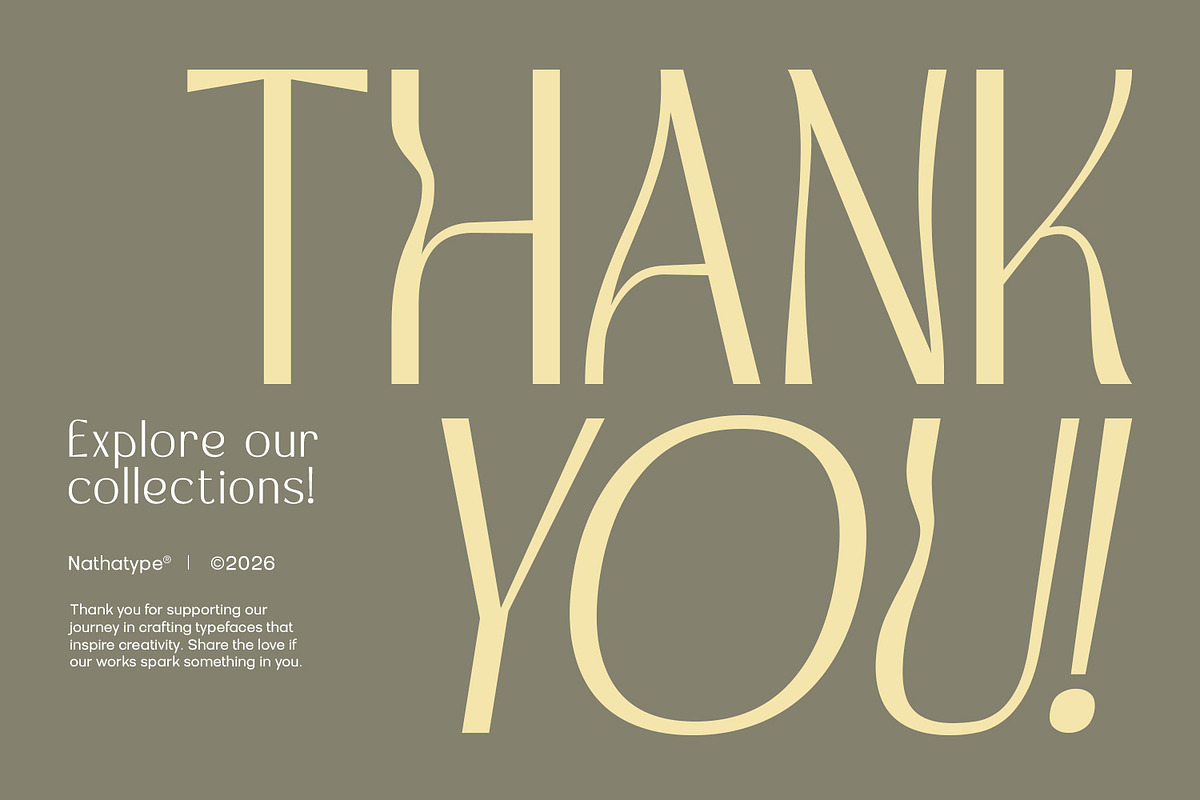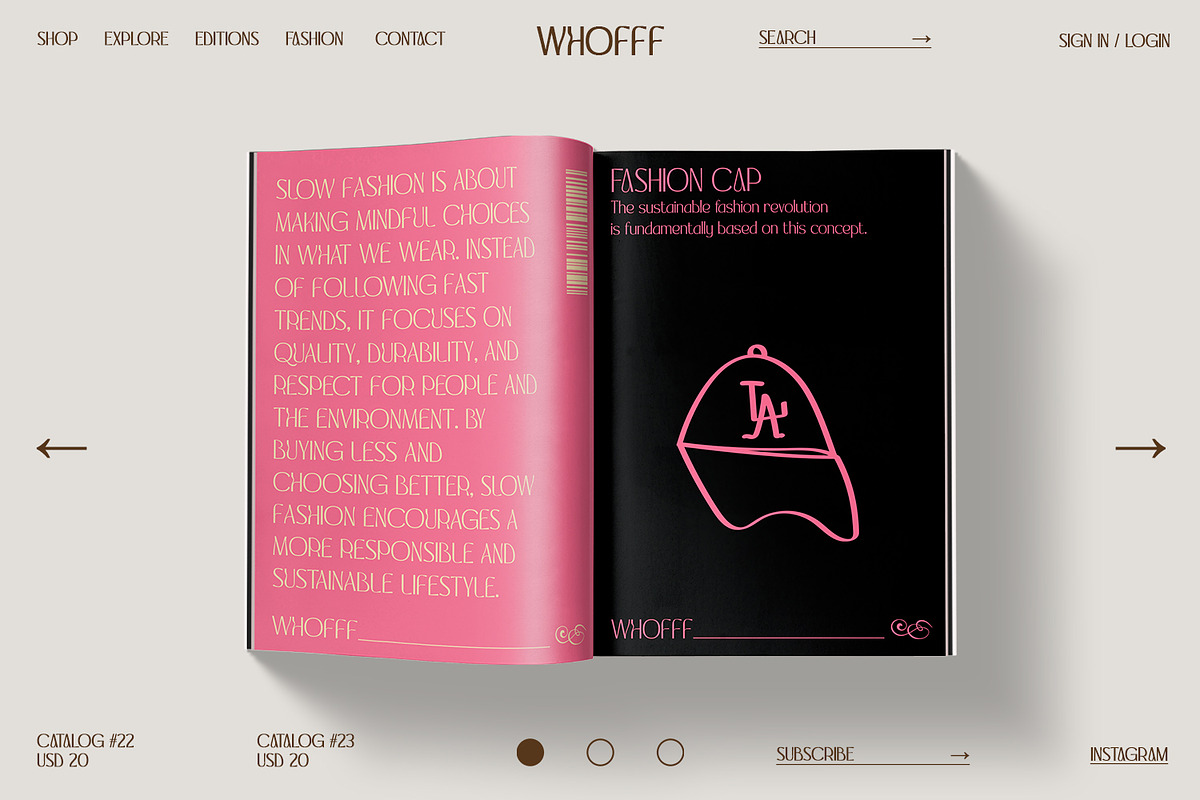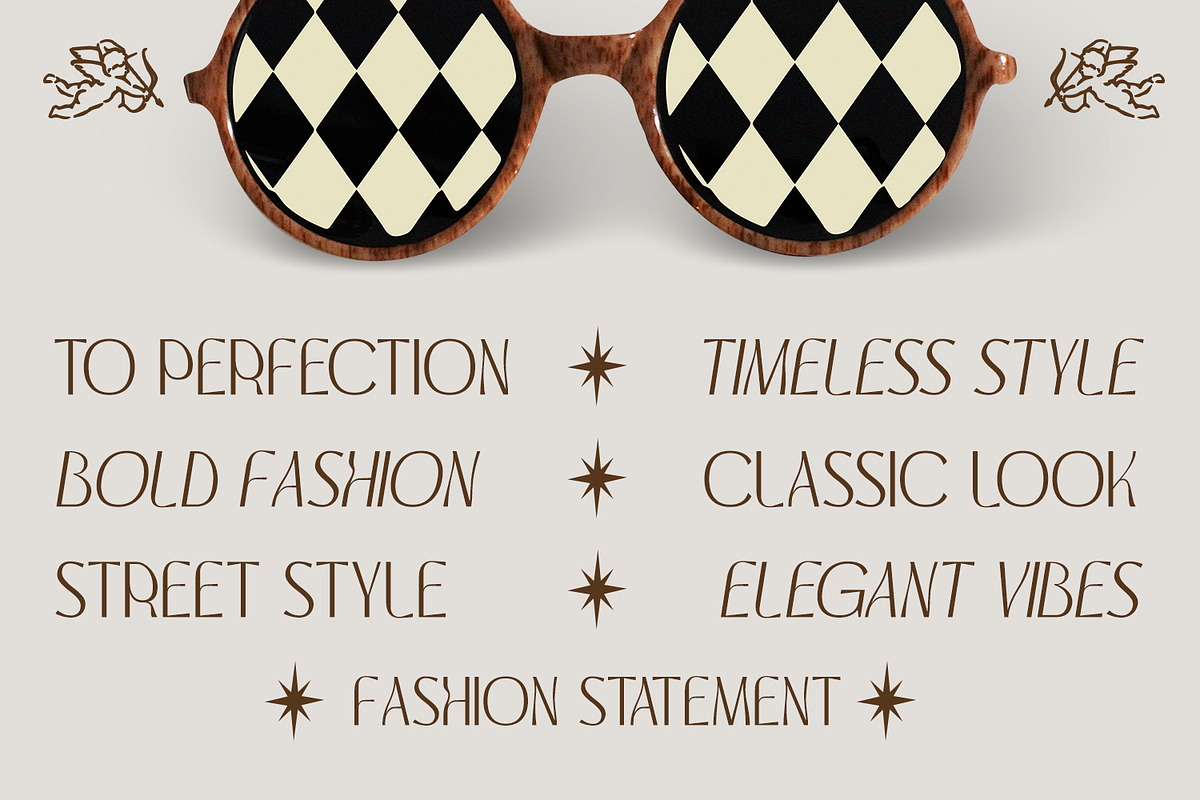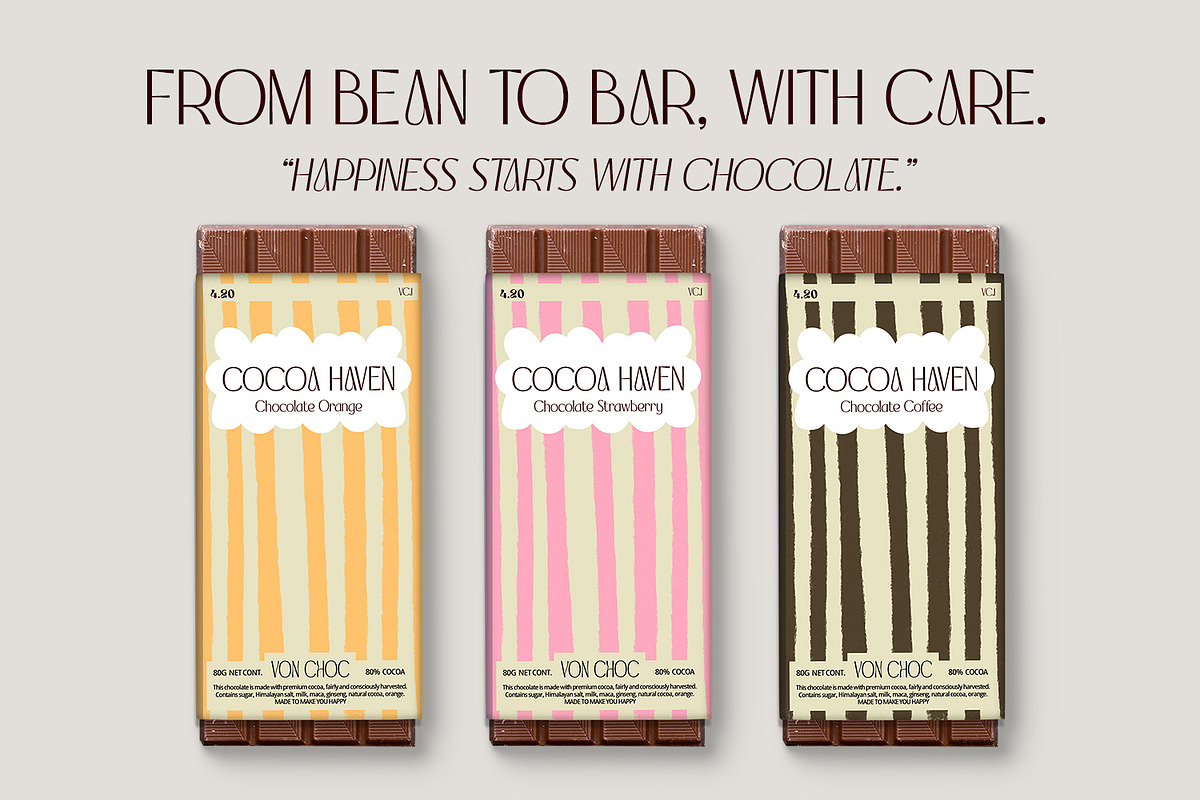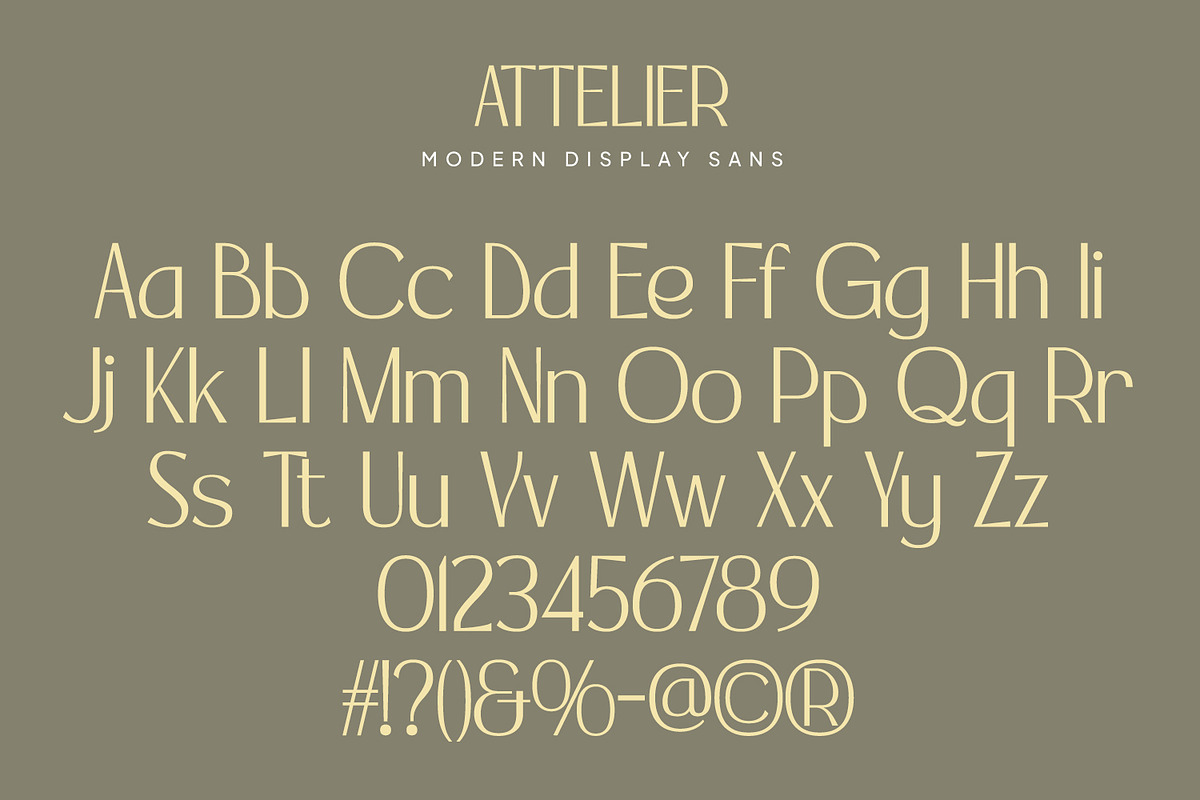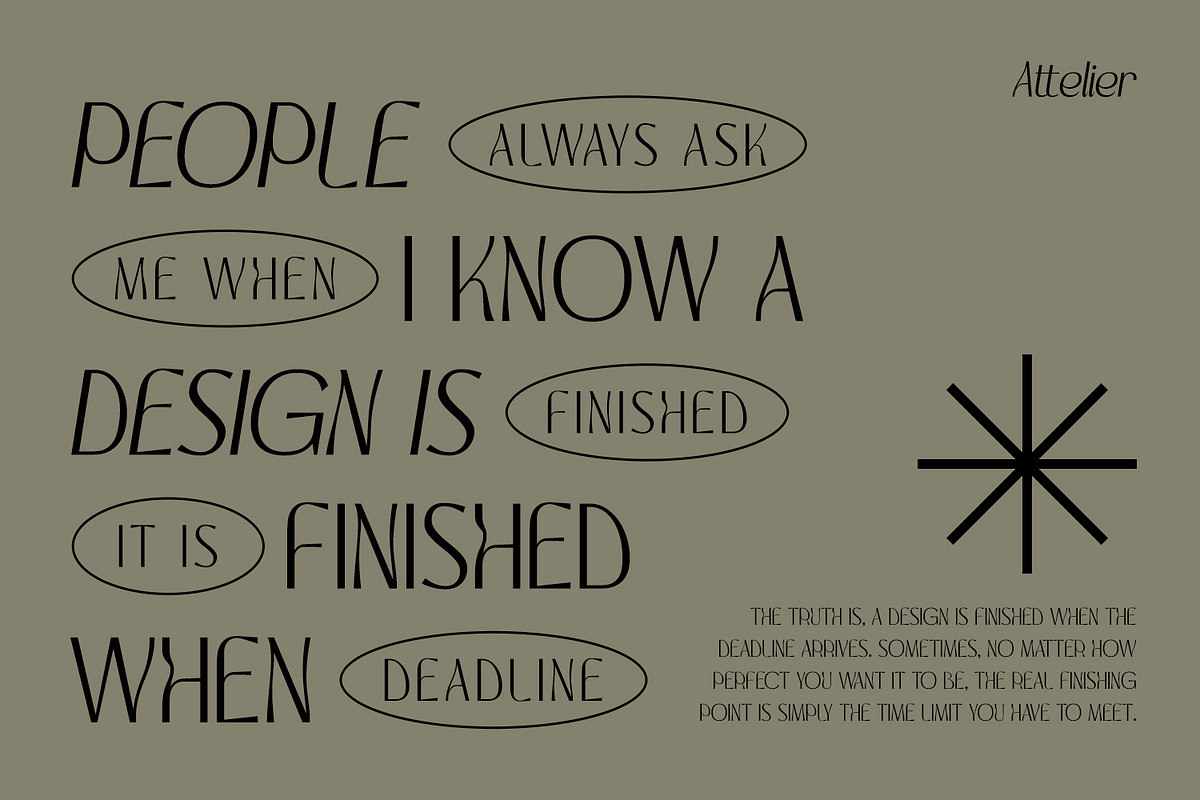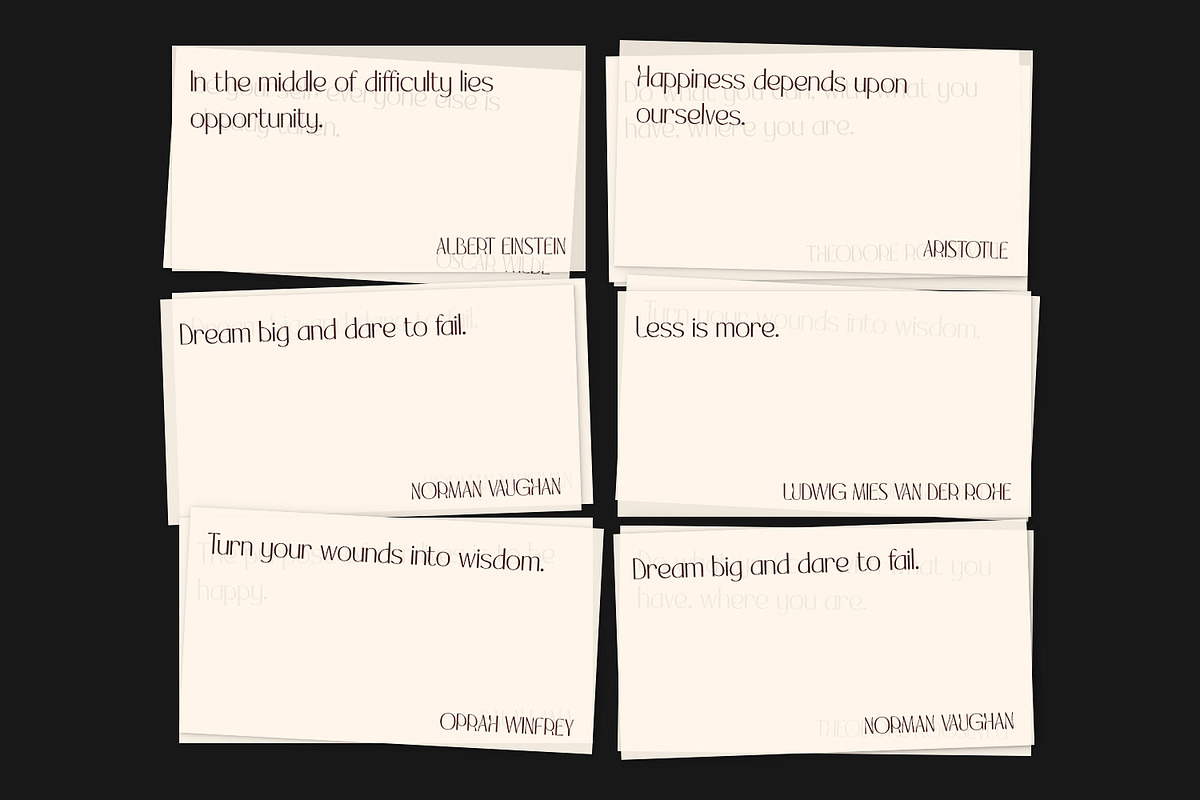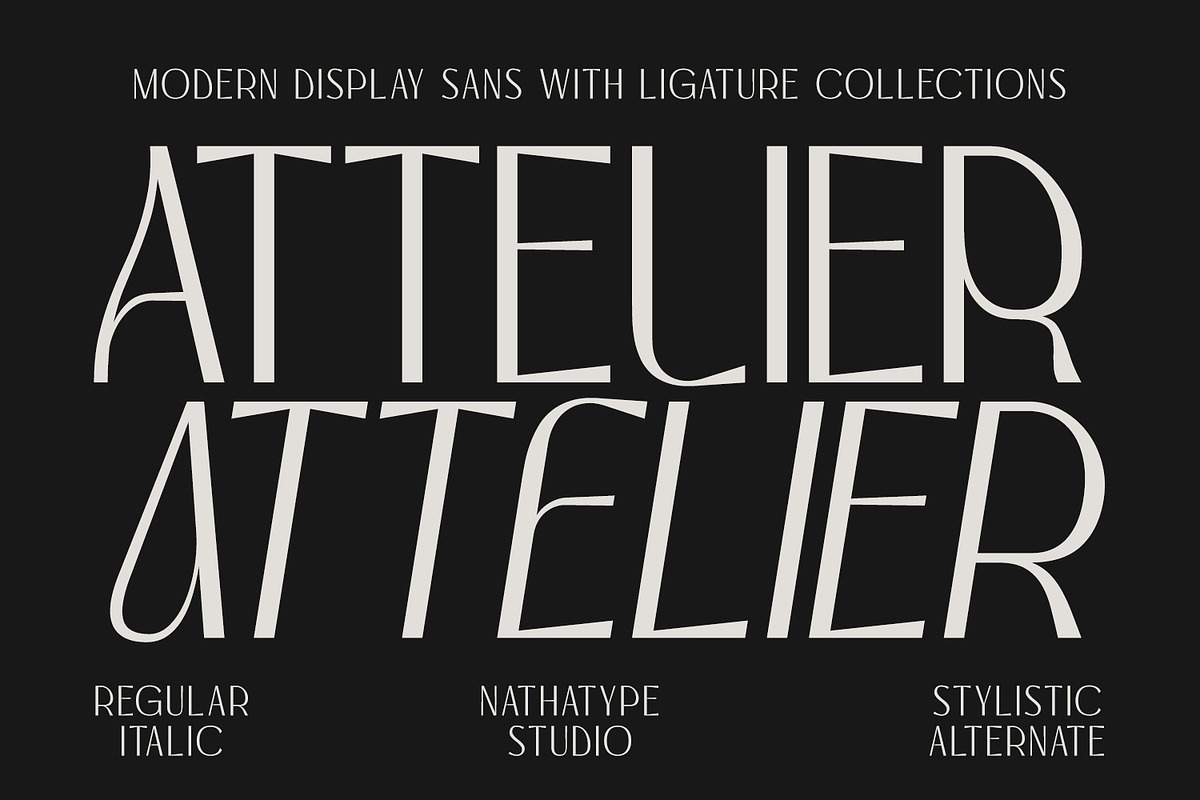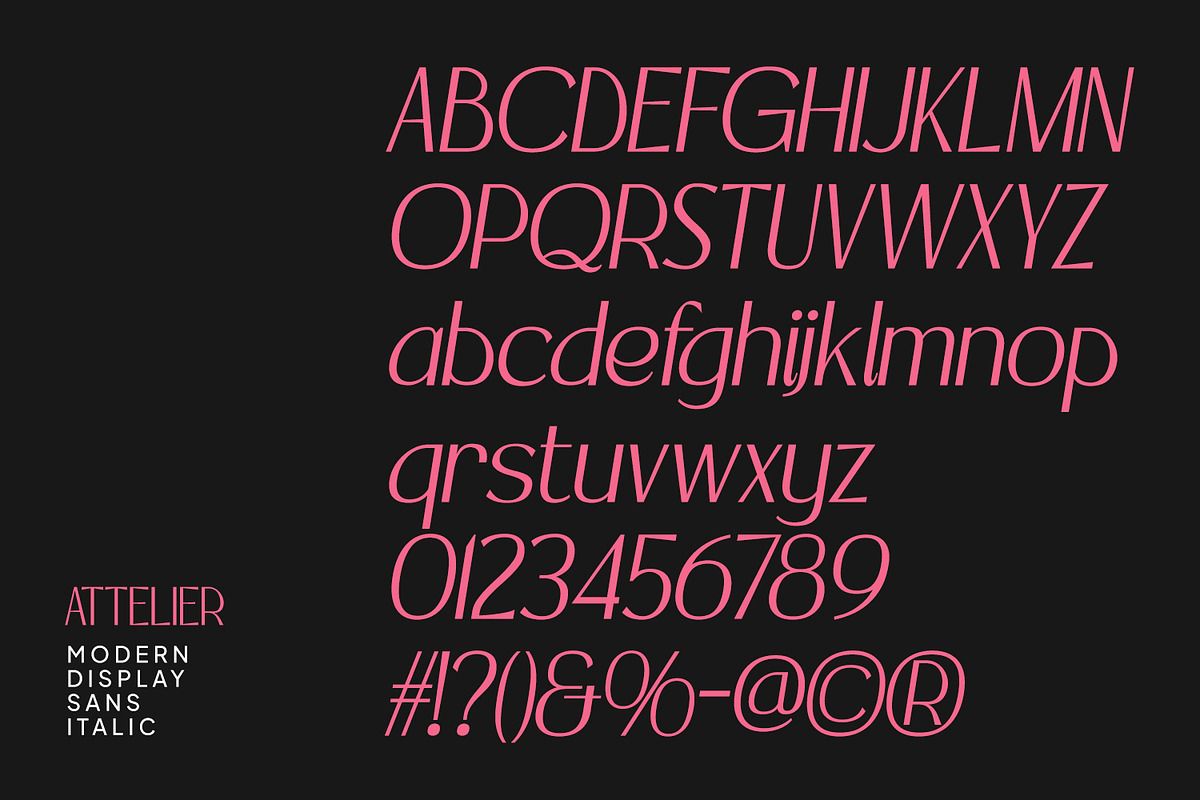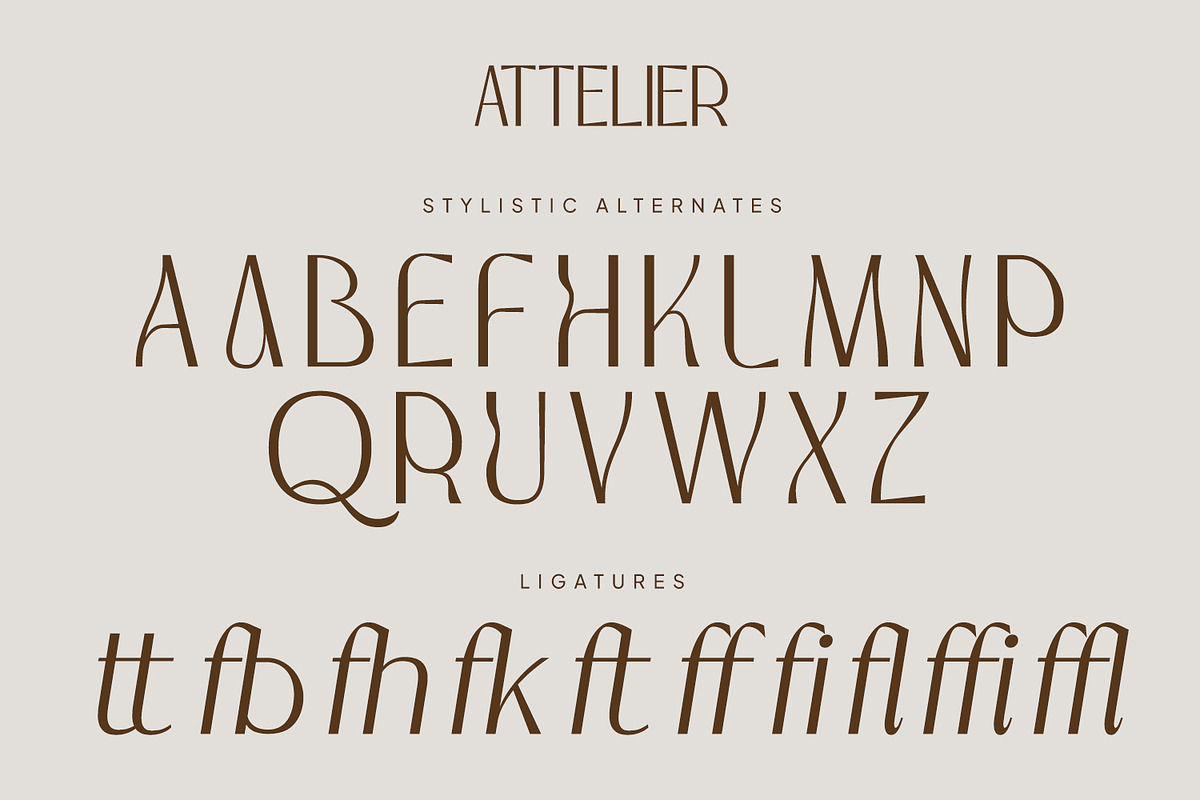
Attelier
Attelier is a refined display sans serif font. Created for designers who appreciate subtle sophistication, Attelier delivers a sleek and contemporary look that feels both timeless and forward-thinking. Its delicate strokes and carefully balanced proportions make it an excellent choice for high-end visual projects where clarity, style, and precision are essential. With its lightweight structure, Attelier offers a graceful appearance that enhances readability while maintaining a strong visual identity. In addition, enjoy the features here.
Attelier fits in logos, quotes, branding, posters, and many more designs. Find out more ways to use this font by taking a look at the font preview.